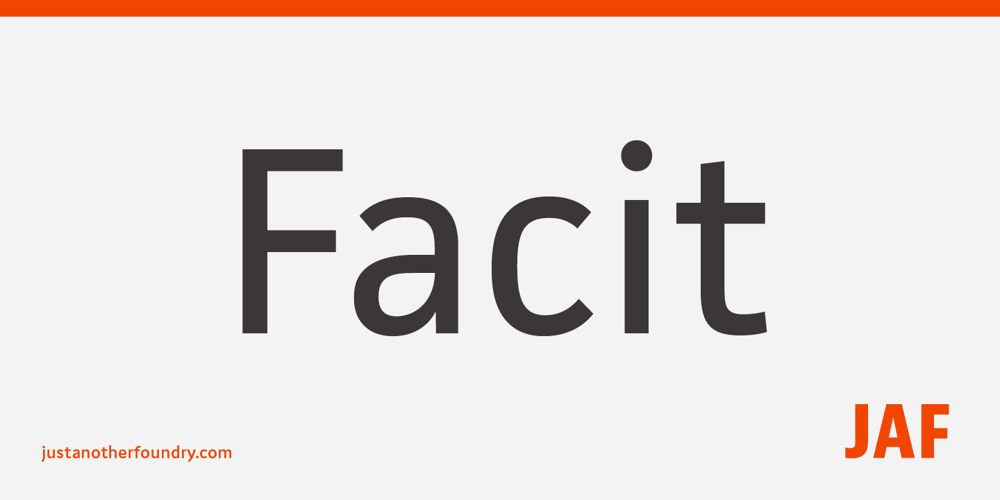
JAF Facit Font Family was designed by Tim Ahrens and published by Just Another Foundry. JAF Facit contains 12 styles and family package options. Facit is a contemporary sans serif text face. It is designed to be a highly legible and flexible font that does not draw the attention to itself. Instead of being original by itself it is the result of a careful examination of ancient as well as modern formal concepts. “It is by definition impossible to design an un-conventional typeface. Type is pure convention, this is why we can read each other’s written words”, says its designer Tim Ahrens. However, rather than generating an average, existing principles were consciously combined into a unique design solution: The word ‘Facit’, in its German version, means ‘conclusion’. The fonts are provided in OpenType format. Each font contains 720 glyphs. Technically, they follow the Adobe Pro fonts and provide the same glyph set and OpenType functionality. OpenType features include ligatures, true small capitals, superiors, inferiors, numerators and denominators. Every font contains old style and lining figures, both in a proportional and a tabular design. For some letters there alternate characters.